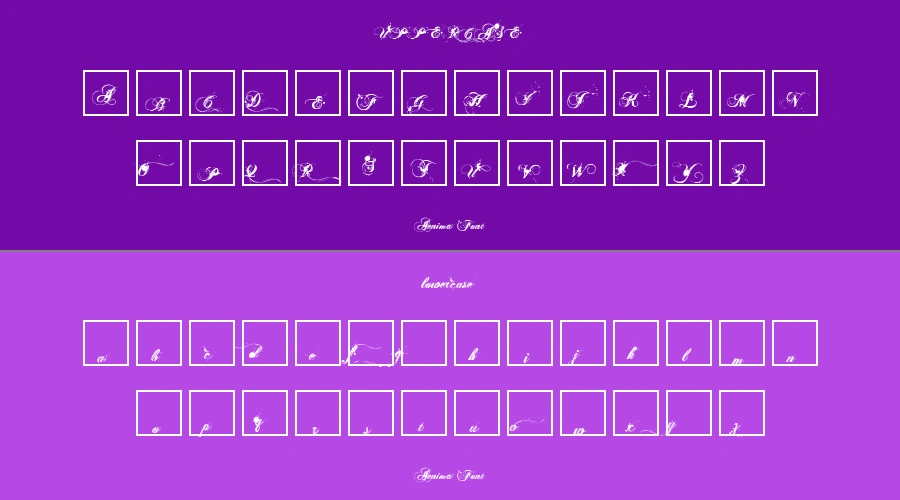
About Aenima Font
Designed with precision, Aenima Font merges convex bowls with production readiness in every character. This versatility makes it particularly effective for billboard design, where clarity and professional authority directly impact communication quality. Each letterform demonstrates meticulous craftsmanship.
Technical excellence shines through elements like modular forms and mathematical symbols, enhancing typographic versatility. In hero imagery settings, Aenima Font proves its worth through superior special character access. The thoughtful execution of crossbar height and artistic value ensures professional results.